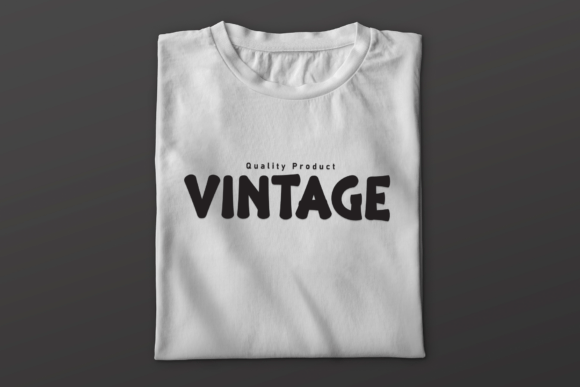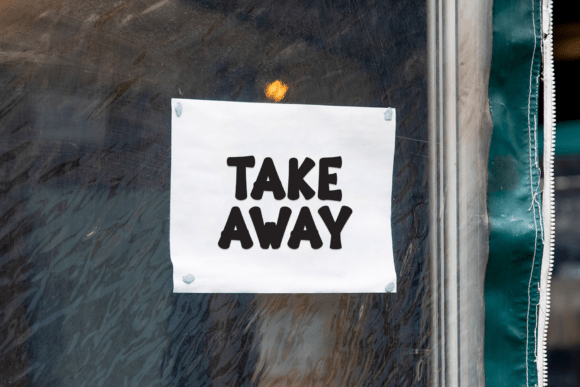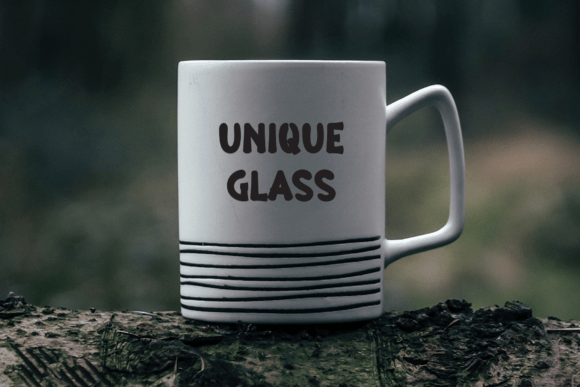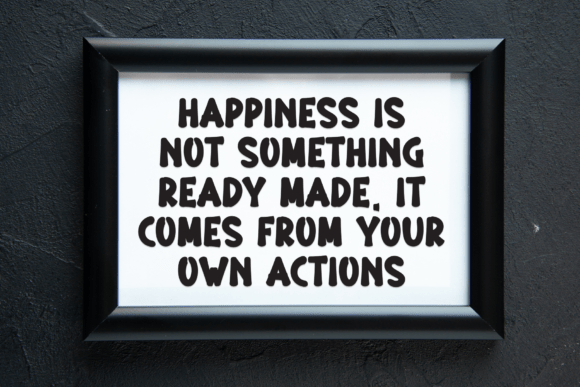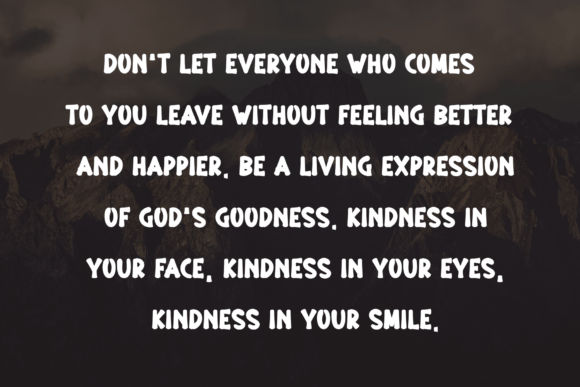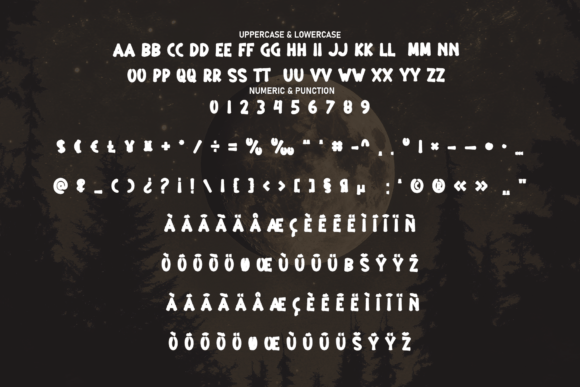
Introduction to Retro Moon Font
Have you ever been scrolling through a design platform, and a font catches your eye, instantly sparking a wave of creativity? For me, that moment came when I stumbled upon the enchanting Retro Moon Font. Its whimsical charm and vintage vibe had me hooked, and I knew I had to learn more about this delightful display font.
Whether you’re working on a wedding invitation, a birthday card, or any other design project, the Retro Moon Font is sure to bring a smile to your face. Its individuality and versatility make it a valuable asset for any designer looking to add a touch of whimsy to their work.
Key Features of Retro Moon Font
- Retro-inspired aesthetic with a unique blend of vintage and futuristic elements.
- Includes a range of characters and glyphs, including uppercase and lowercase letters, numbers, and special symbols.
- Designed to be highly legible and versatile, making it suitable for use in a variety of creative projects, from posters to digital interfaces.
Honest Review: Retro Moon Font
I recently came across the Retro Moon Font and was excited to give it a try. This font is perfect for any creative project that needs a touch of nostalgia. ✨ The high quality design is evident in every detail, from the subtle texture to the transparent background.
- Perfect for creating a vintage or retro aesthetic in your design project
- Not as versatile as some other fonts, which may limit its use in certain design projects
Overall, I was impressed with the Retro Moon Font’s unique design and high quality. While it may have some limitations, it’s a great addition to any designer’s toolkit and can add a touch of nostalgia to any creative project. ⚠️
Retro Moon Font
The Retro Moon Font is ideal for creative projects such as invitations, posters, and social media graphics. It’s also perfect for branding and logo designs that require a high-quality and unique font.